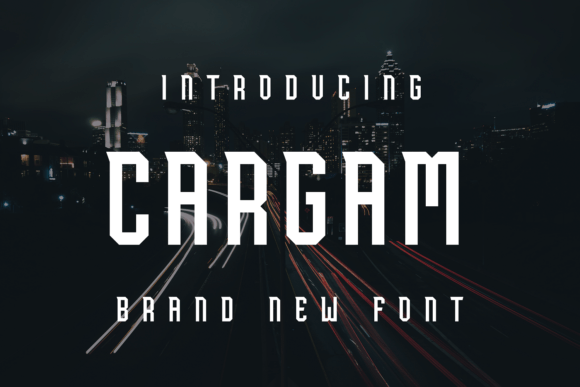
Cargam Font: Elevate Your Designs with a Cool and Unique Display Font
In the world of typography, a font can make or break a design. A well-crafted font can elevate your creation, making it stand out from the crowd. If you’re a designer or crafter looking for a font that can add a touch of uniqueness to your work, look no further than Cargam Font. In this article, we’ll dive into the features and benefits of Cargam, and explore how it can become a valuable asset in your font library.
What is Cargam Font?
Cargam Font is a cool and unique display font that is neatly crafted and highly detailed. Its distinctive design makes it perfect for a wide range of applications, from branding and advertising to packaging and digital media. Whether you’re working on a bold headline or a subtle label, Cargam Font is sure to make a statement.
Key Features of Cargam Font
• Unique Design: Cargam Font boasts a one-of-a-kind design that sets it apart from other fonts. Its unique shape and structure make it perfect for designers looking to add a touch of personality to their work.
• Highly Detailed: Cargam Font is meticulously crafted, with intricate details that make it stand out. This level of detail ensures that the font remains clear and legible, even at large sizes.
• Versatile: Cargam Font is a versatile font that can be used in a wide range of applications. Whether you’re working on a digital project or a print project, this font is sure to shine.
Benefits of Using Cargam Font
So, why should you choose Cargam Font for your next project? Here are just a few benefits of using this amazing font:
• Enhance Your Designs: Cargam Font has the potential to elevate any creation, making it a valuable asset to your font library. Its unique design and highly detailed structure ensure that your designs stand out from the crowd.
• Save Time: With Cargam Font, you can save time and effort in your design process. Its versatility and legibility make it easy to use, allowing you to focus on other aspects of your project.
• Increase Brand Recognition: If you’re working on a branding project, Cargam Font can help increase brand recognition. Its unique design makes it memorable, ensuring that your brand stays top of mind.
How to Use Cargam Font
Using Cargam Font is easy. Here are a few tips to get you started:
• Pair it with Other Fonts: Cargam Font pairs well with other fonts, making it easy to create a cohesive look. Experiment with different font combinations to find the perfect match.
• Experiment with Sizes: Cargam Font is highly legible, even at large sizes. Experiment with different sizes to find the perfect fit for your project.
• Use it for Headlines: Cargam Font is perfect for headlines and titles. Its bold design makes it easy to read, even from a distance.
In conclusion, Cargam Font is a cool and unique display font that can elevate any design. Its highly detailed structure and versatile design make it perfect for a wide range of applications. Whether you’re a designer or crafter, Cargam Font is sure to become a valuable asset in your font library. So why wait? Download Cargam Font today and take your designs to the next level!
With its unique design, highly detailed structure, and versatility, Cargam Font is the perfect addition to any font library. Whether you’re working on a digital project or a print project, this font is sure to shine. So, what are you waiting for? Get creative with Cargam Font and take your designs to new heights!